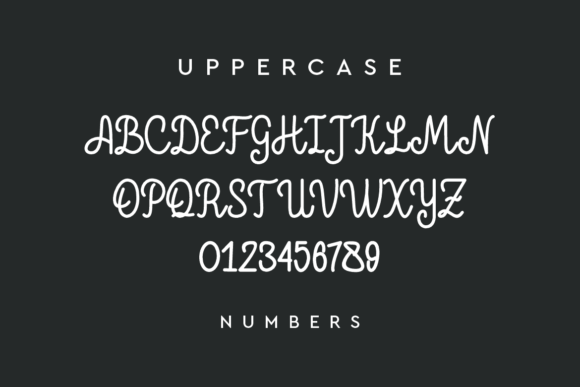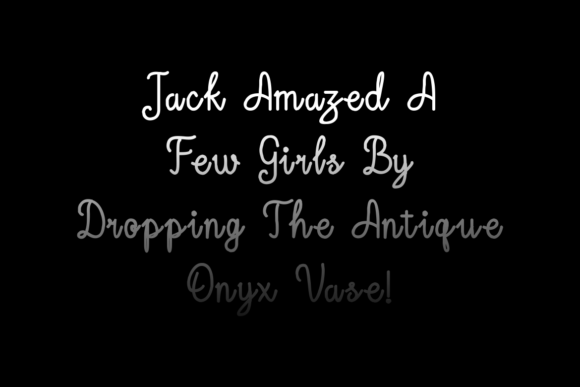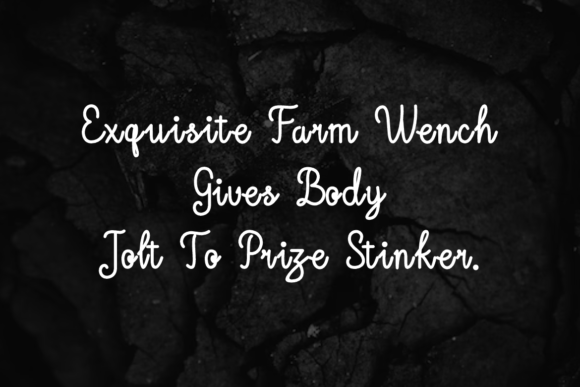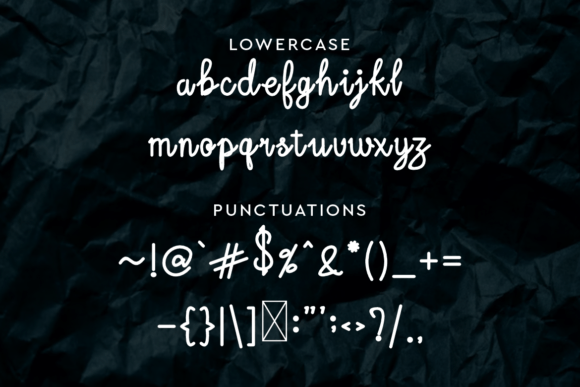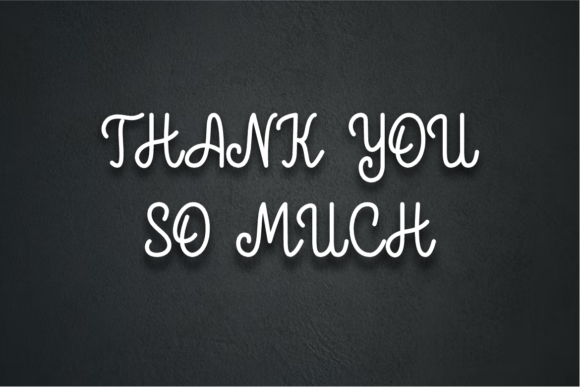
Introduction to Joko Kendil Font
As a designer, there’s nothing quite like the thrill of creating something from scratch – the spark of an idea, the click of the mouse, and the instant satisfaction of bringing it to life. For those of us who live for this feeling, we’re always on the lookout for the perfect tools to elevate our craft. And, in the world of typography, one font stands out from the rest: the Joko Kendil Font.
This versatile and modern script font has been a game-changer for designers, adding a touch of sophistication and elegance to even the most mundane of designs. Whether you’re working on a branding project or a creative campaign, the Joko Kendil Font is the perfect addition to your design resource arsenal. With its free download option and transparent background, the possibilities are endless.
So, what makes the Joko Kendil Font so valuable for designers? Its high-quality design and versatility make it the perfect choice for any creative project, ensuring that your work stands out from the crowd and leaves a lasting impression.
Key Features of Joko Kendil Font
- High-quality design for creative projects, ideal for use in graphic design, digital art, and print media.
- Features a unique, hand-drawn style that adds a touch of personality to any design project.
- Perfect for designers looking for a distinctive and creative font to elevate their design projects.
Honest Review: Joko Kendil Font
I recently had the chance to work with the Joko Kendil Font, and I must say it’s been a delightful experience. This free download is a great addition to any designer’s toolkit, offering a unique and stylish touch to creative projects.
One of the standout features of the Joko Kendil Font is its high-quality design. The font is beautifully crafted, with intricate details and a delicate touch that makes it perfect for intricate design work. The transparent background is also a nice touch, allowing designers to easily place the text over any image or background.
Here are some of the things that work well with the Joko Kendil Font:
- Unique and stylish design that adds a creative touch to any project
- High-quality font that’s perfect for intricate design work
- Transparent background makes it easy to place text over images
- May not be suitable for body text due to its intricate design
- Limited character set may require additional fonts for extensive use
Overall, I’m impressed with the Joko Kendil Font. It’s a great design resource that’s perfect for adding a touch of elegance and sophistication to creative projects. With its high-quality design and transparent background, it’s a must-have for any designer looking to take their work to the next level.
Common Use Cases for Joko Kendil Font
The Joko Kendil Font is suitable for a wide range of creative projects, including branding, marketing materials, and digital content. Its unique characteristics make it an excellent choice for designers seeking a high-quality, free download font with a transparent background.